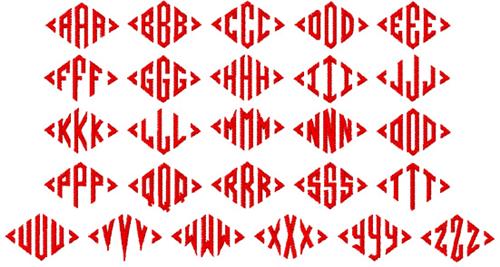
Internet Stitch is happy to present Diamond Monogram machine embroidery font which has Bold monogram machine embroidery font featuring red initials 'ABC' within a diamond shape, accented by stylish arrows. Ideal for personalizing home decor items like cushions and table runners. Available in PES, DST & 11 other formats. included. If you would like to view more embroidery fonts and alphabets please search our embroidery fonts page.